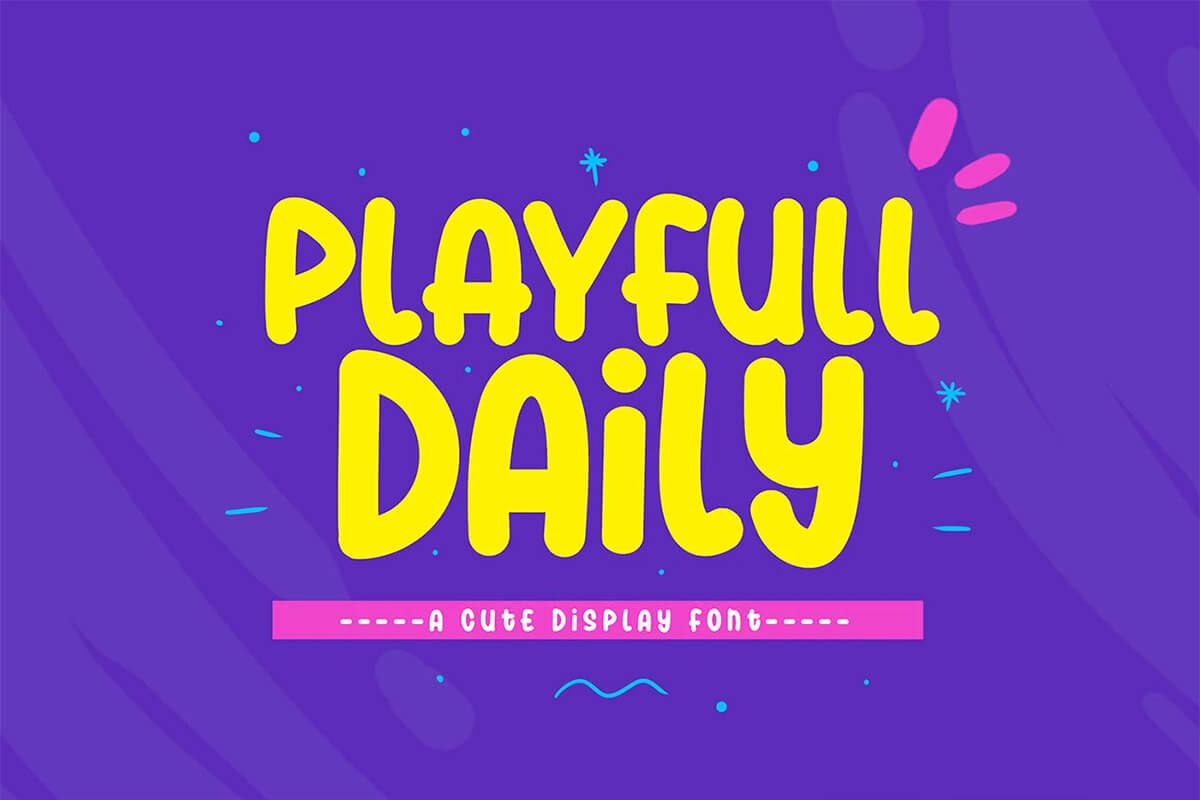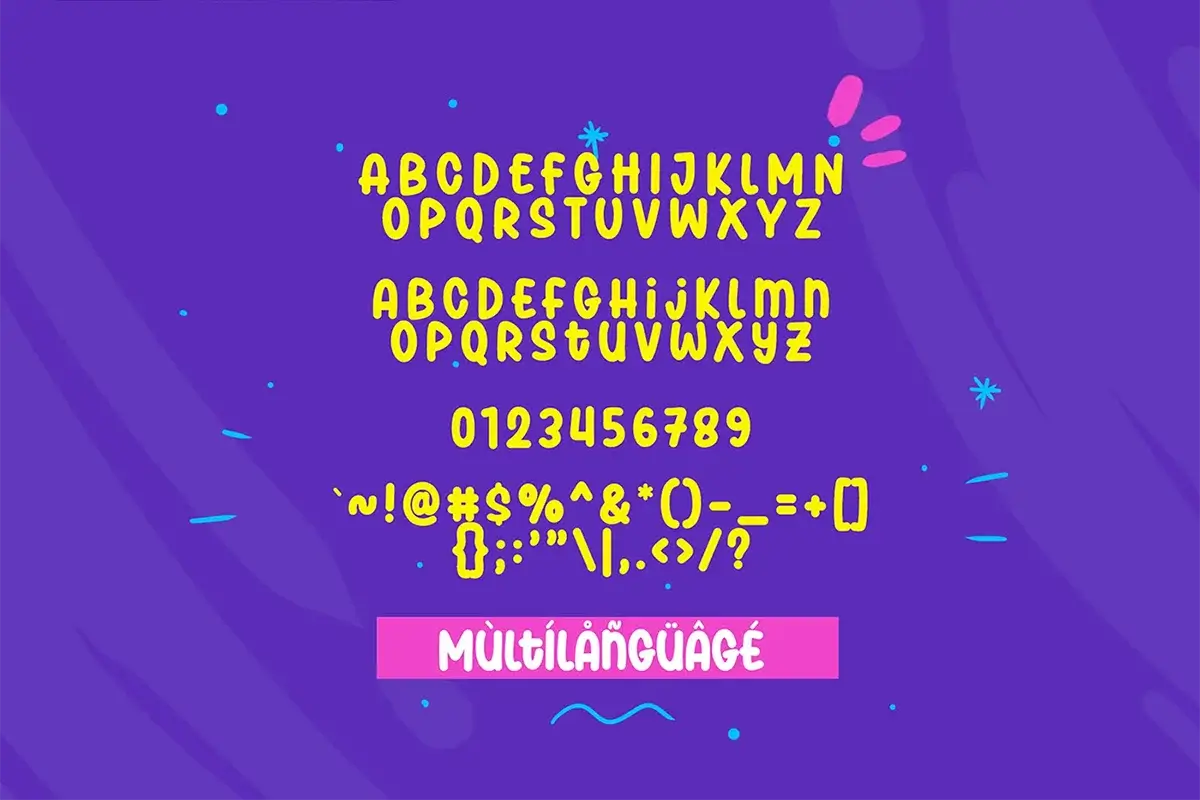
Playfull Daily Font – Fancy Typeface
The Playfull Daily Font is a cute, fun font that’s full of bright colors and shiny designs, and is perfect for livening up kids’ projects by adding a cheerful touch to them.
It includes the OTF format with only basic letters and its smooth, rounded style makes it extremely easy to use, whether you’re creating a bold headline, party invitation, logo, branding, invitation, poster, wedding invitation, t-shirt, letterhead, signage, labels, badges, kids’ crafts, invitations, or any design that needs a boost of energy.